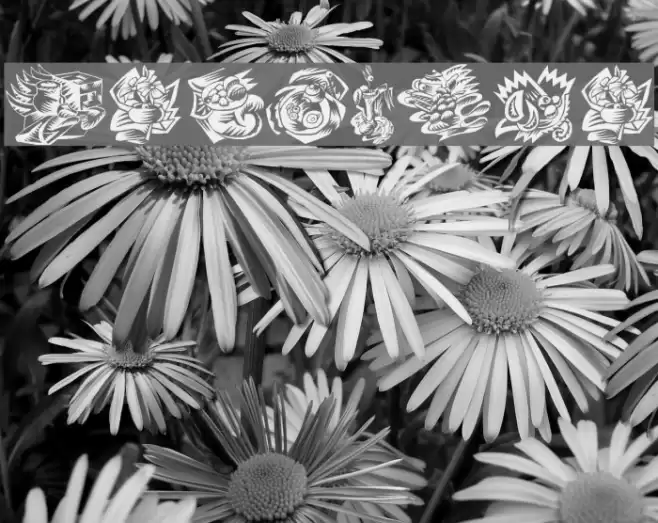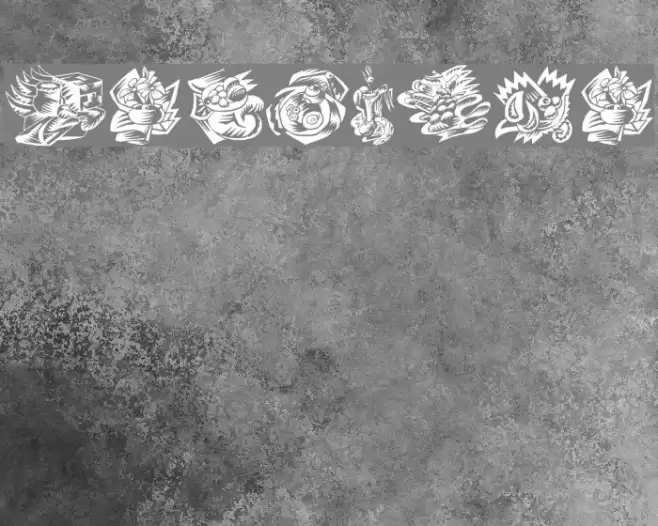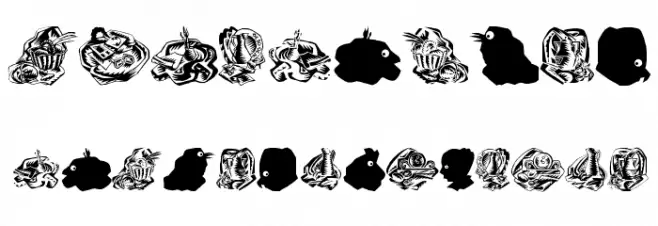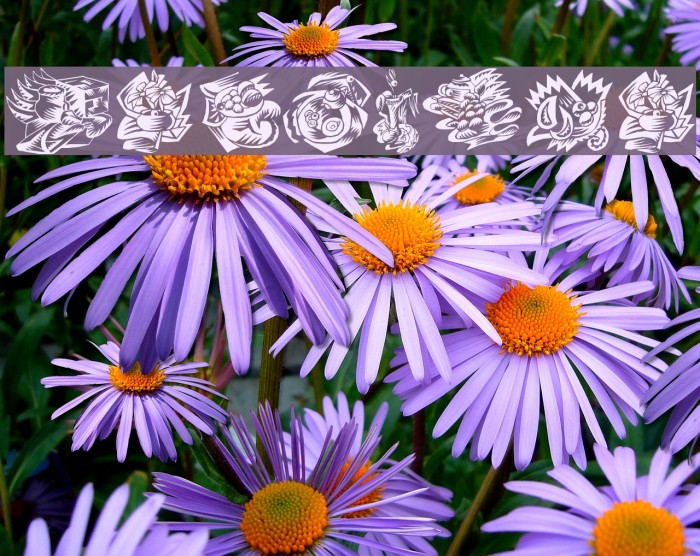
Relative Font
This font features an intricate and highly decorative style, with each character resembling an elaborate illustration. The design incorporates complex line work and artistic flourishes, making each letter appear as a unique piece of art. The characters are bold and visually striking, with a high level of detail that suggests a hand-drawn quality. This font is not suitable for body text due to its complexity but serves as a captivating display typeface for creative projects.
An intricate, decorative font with artistic, illustrative characters from Decorative fonts.
- Proposed Projects: Ideal for artistic posters, album covers, or any project requiring a unique and eye-catching display font.
- Use Case: Logos, Headlines, Artistic projects